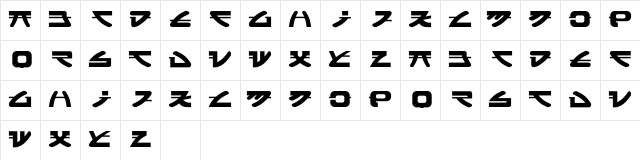
widznipp 1 Regular
Design Context for widznipp 1 Typeface
widznipp 1 is a composed and adaptable typeface that performs quietly and consistently across a wide range of design contexts.